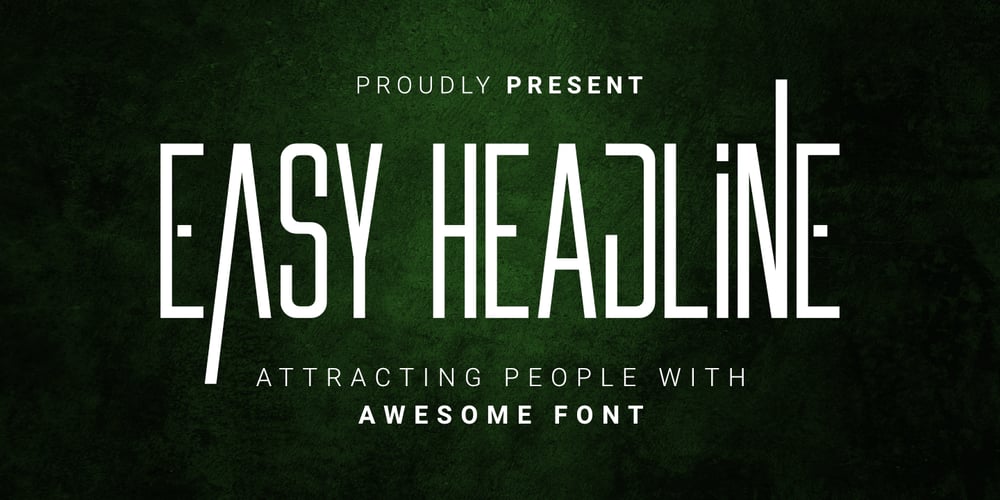
Easy Headline
Easy Headline font
Easy Headline Font Family was designed by Toni Dzulham and published by Dumadi. Easy Headline contains 1 styles and family package options. Hello Designers! Are you ready to make your Designs rock the world? If so, we know the right solution. Now comes the Easy Headline font ready to use for your best projects.Easy Headline is equipped with Uppercase Letters, Lowercase Letters made with unique and cool shapes, Numbers, and Multilingual Support. This font is made for any professional branding project, Great for creating titles, Movie titles, Event titles, Social media titles, Book cover titles, Poster titles, branding, posters, Each letter has a unique and beautiful touch.You can see the sample preview above for comparison,stay the center of attention and classy!